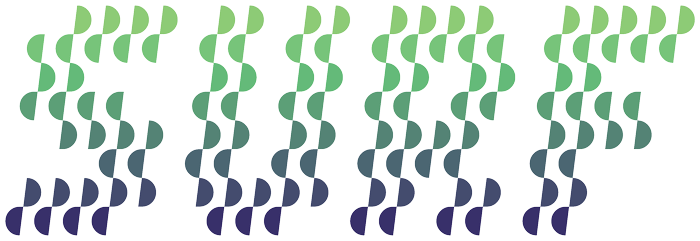
Great use of slanted semicircles to create a playful wobbly effect! Nice gradient as well!
I would say, clever use of combination of halfcircles and wedges to create illusion of slanted split lines. nicely done.
Very good but...its similar to other font.
Very clever idea, I like it a lot! Congrats, compa! PD: And it's not "tonta" at all ("tonta" with one "n" means "silly" in Spanish, btw).
@elmo it can also mean stupid
very clever!
Very creative seaweedy font!
This font looks pretty nice. Could also add Italics to the tag list since this is slanting pretty slightly…
I see a luscious kelp forest... good job, OP
You did a amazing work with it :)
This reminds me of water ripples
And fun fact: Tonnta looks too much like the Portuguese word for dizzy (f.)!